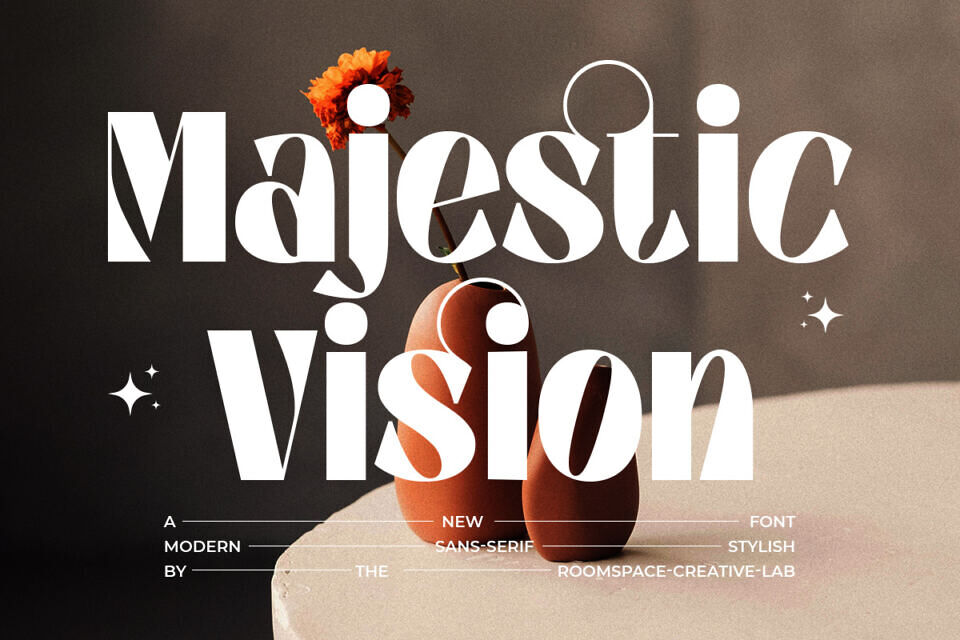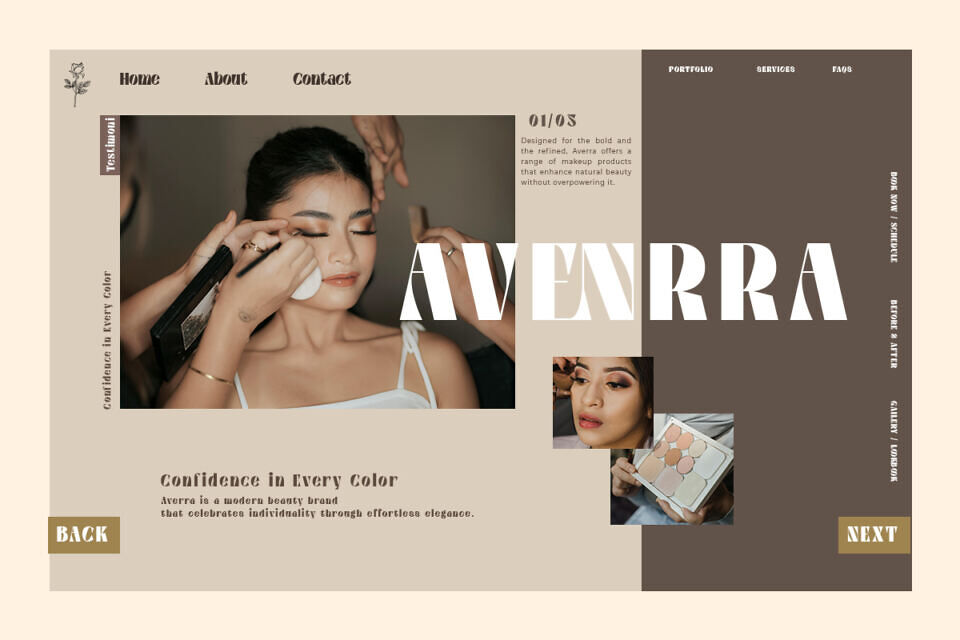
Majestic Vision Font
Manchinos is a Condensed Rounded Display Sans Serif font designed to bring a bold and modern touch to your creative projects. With its smooth curves, high readability, and unique letterforms, Manchinos is perfect for branding, headlines, posters, and more.
Its bold yet elegant appearance, along with its ligatures, provides for an amazing design experience. Come with single weight, recognizable, and evocative shapes.